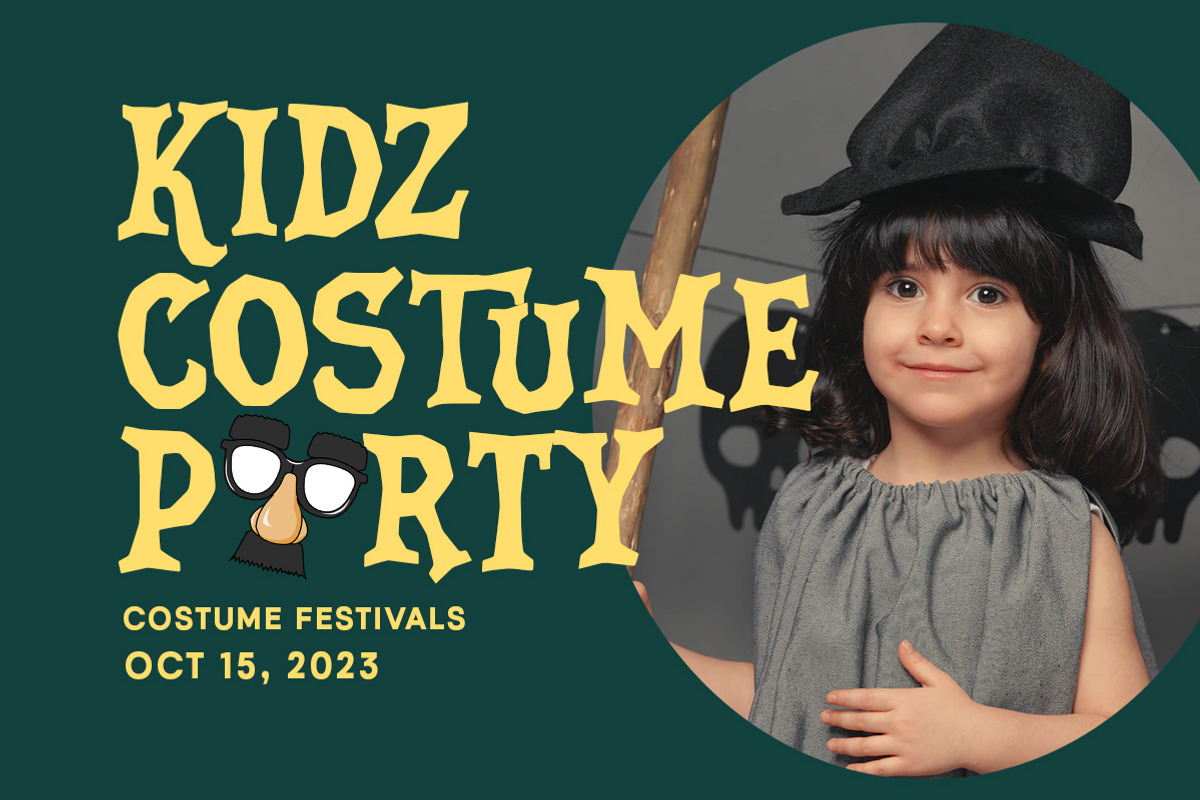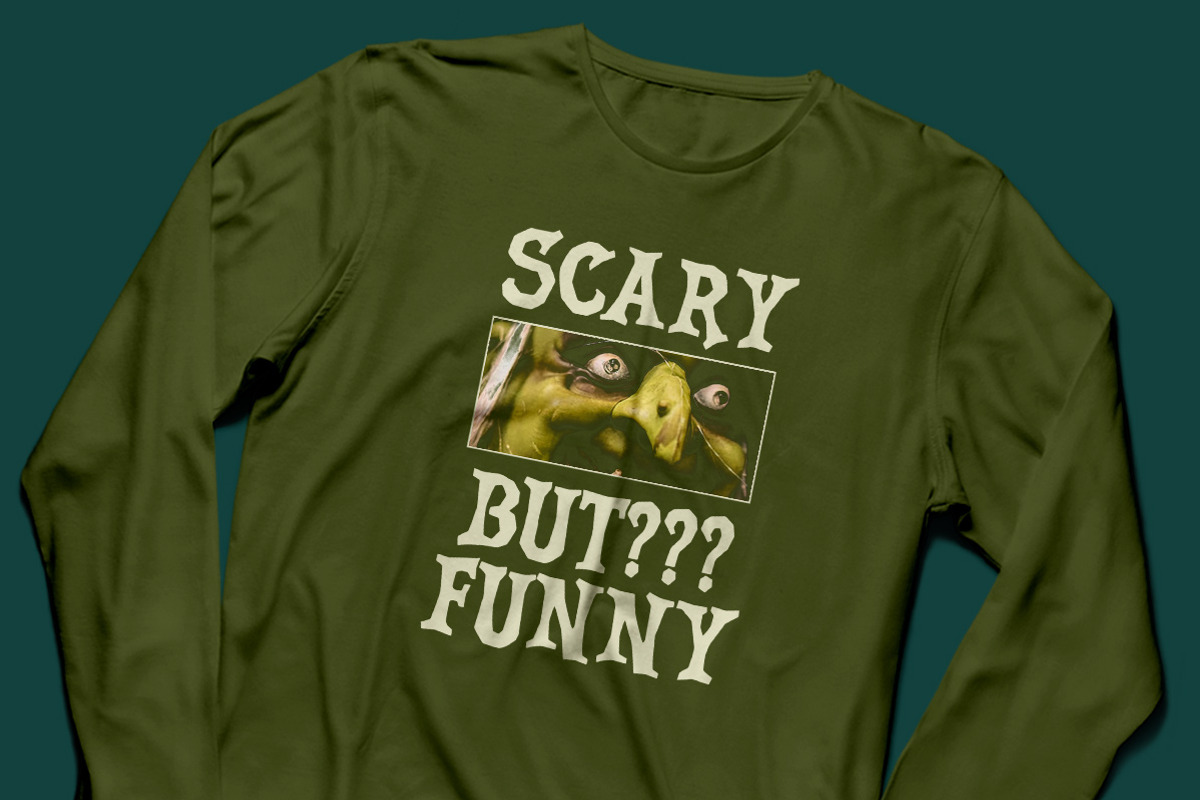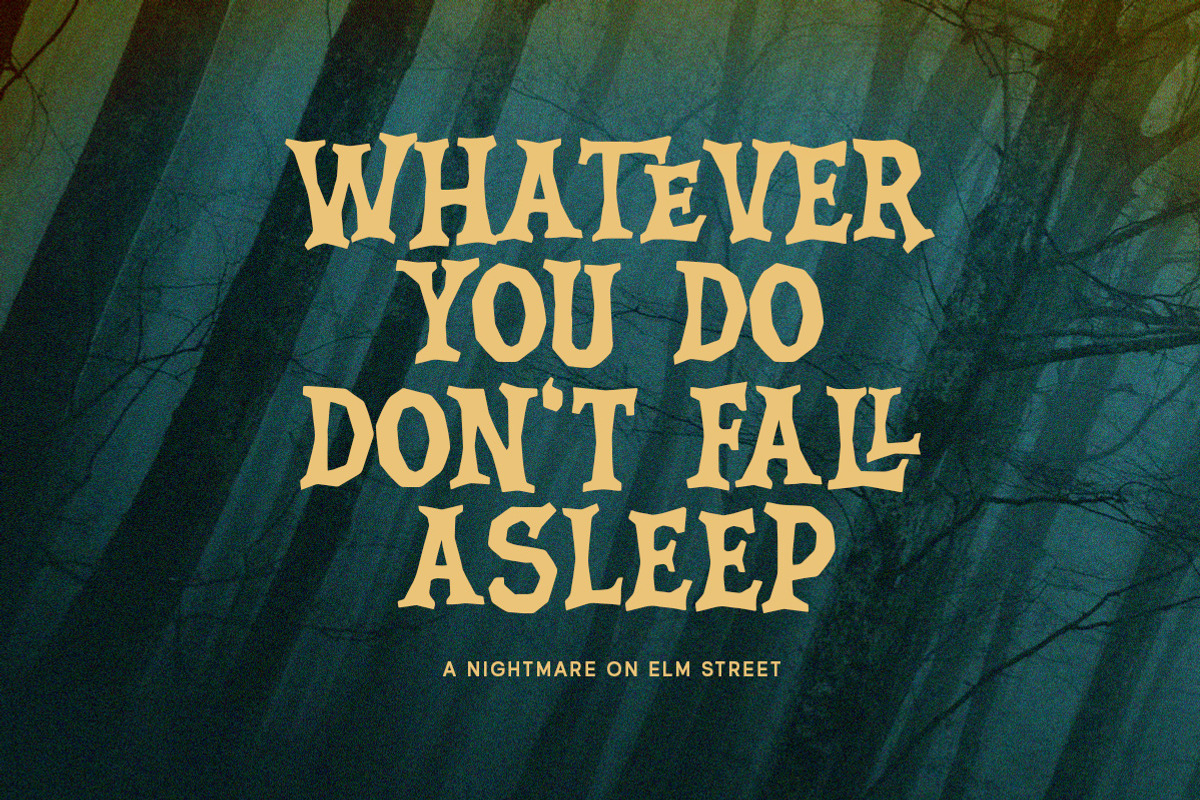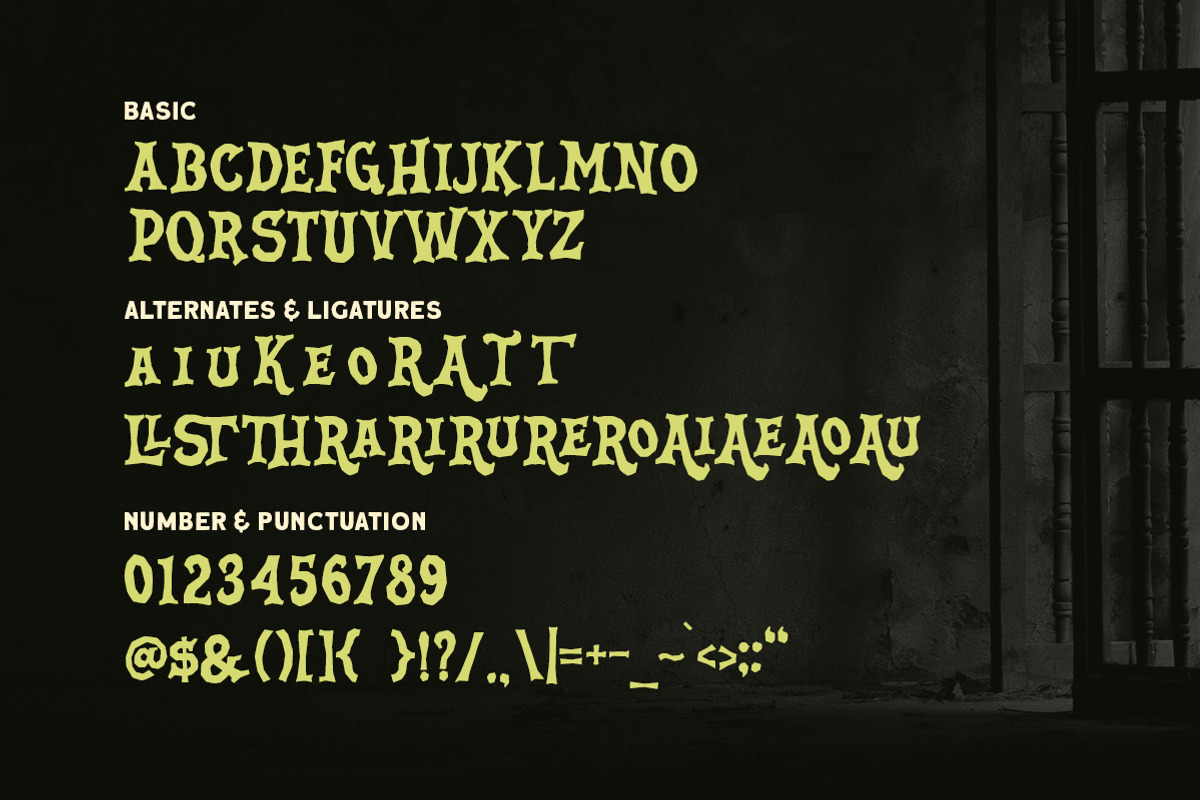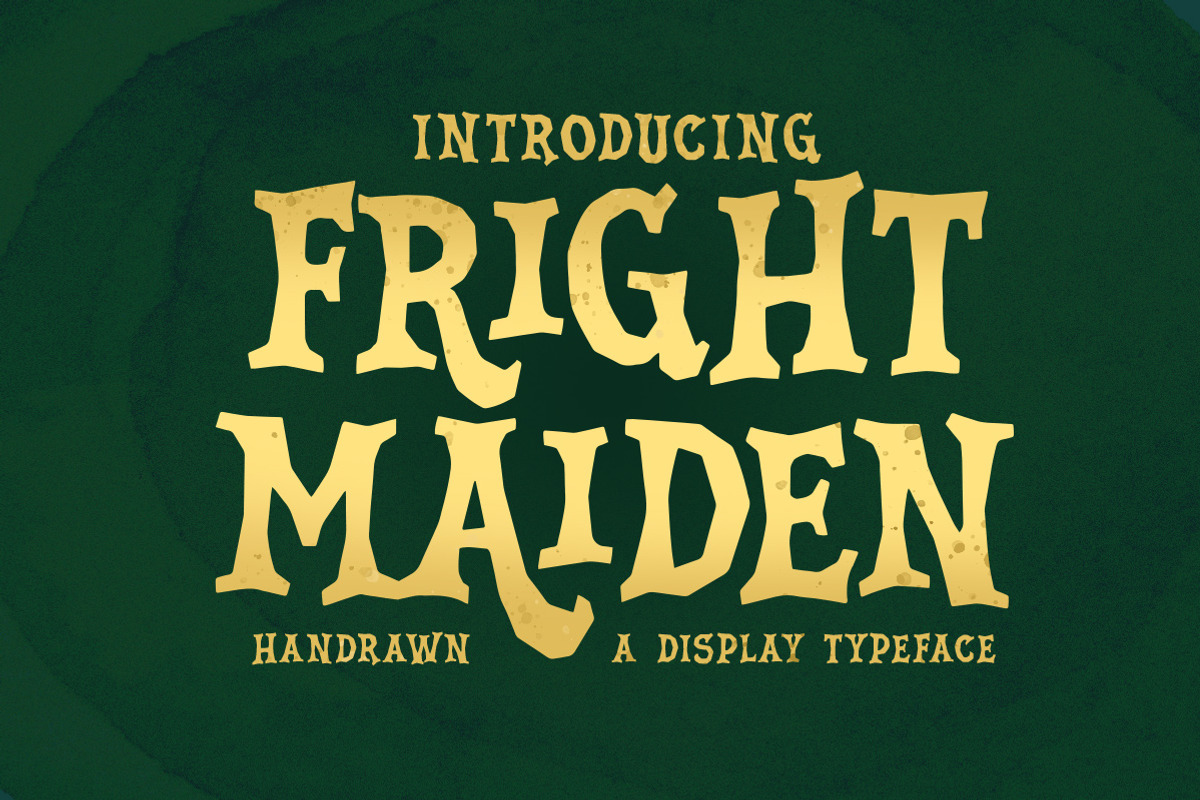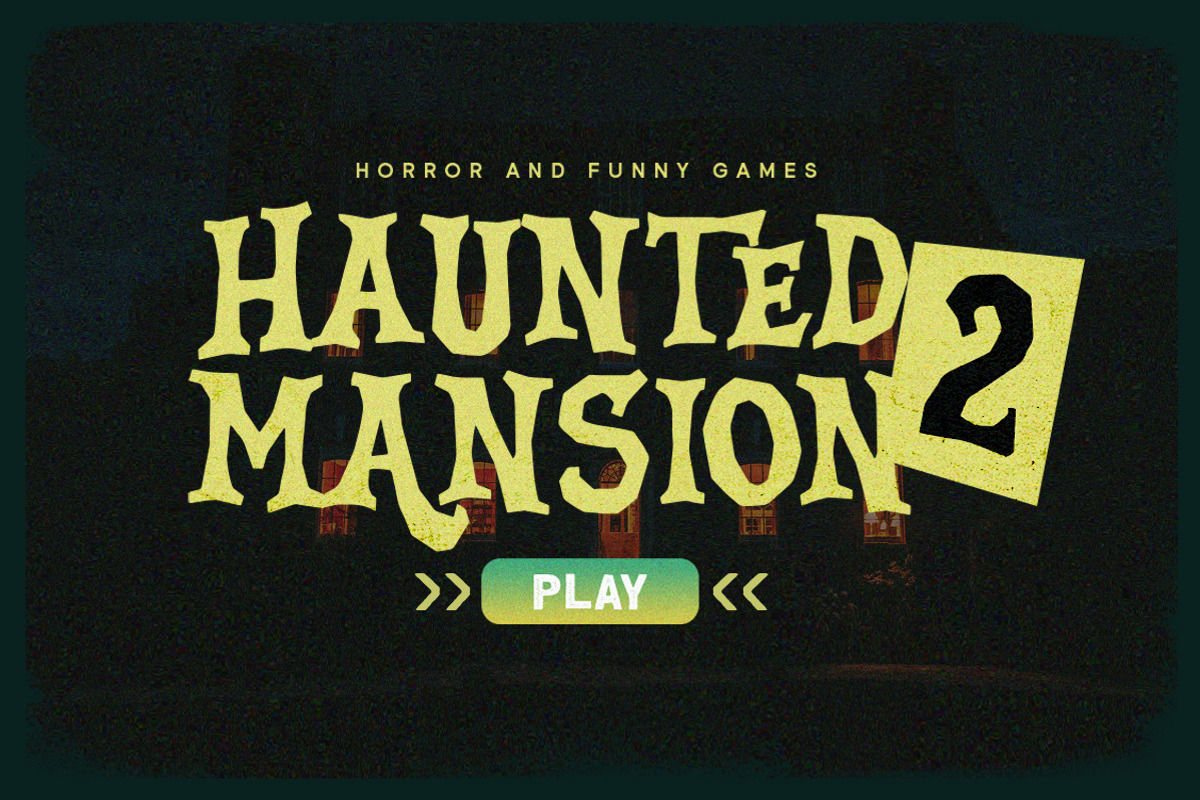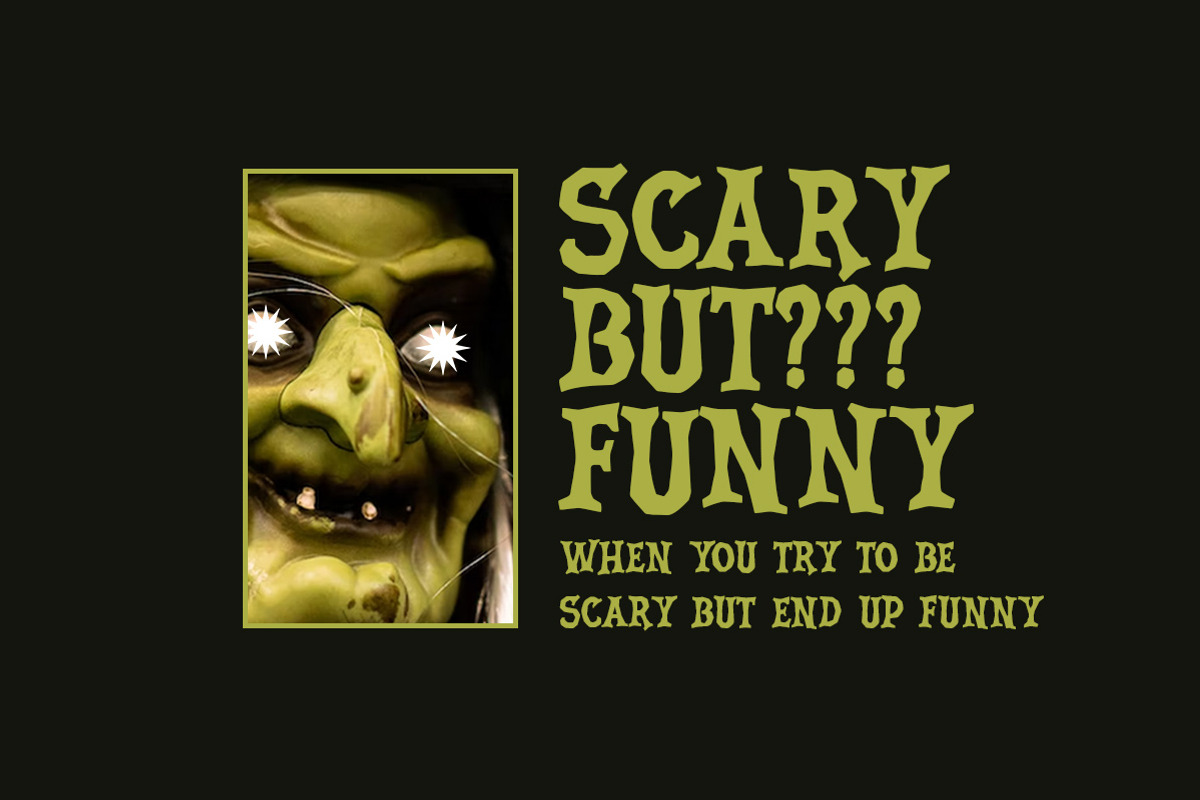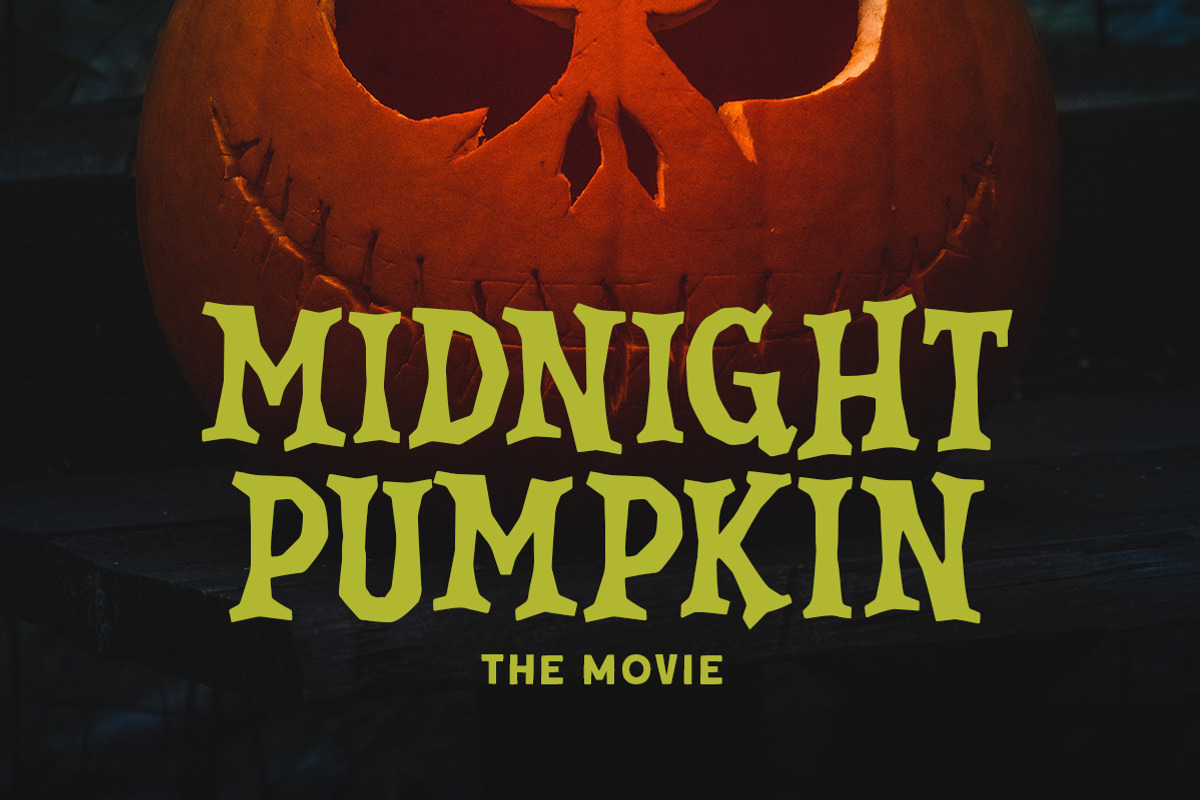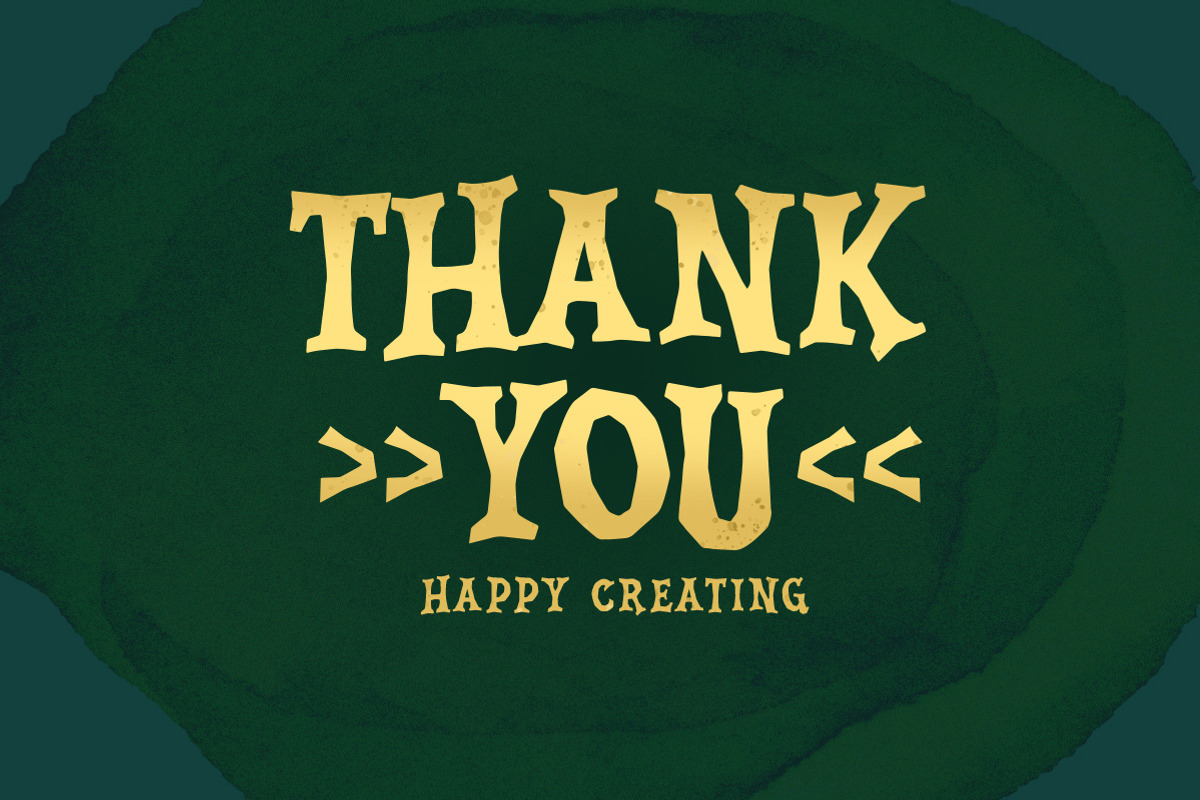
Fright Maiden - Horror Font
Introducing, Fright Maiden - A serif typeface font with bold and horror feel. This font has unique shape, very suitable for horror, thriller and spooky theme design. This font also perfectly made to be applied especially in logo, and the other various formal forms such as invitations, labels, logos, magazines, books, novels, labels or any type of advertising purpose.
- altermate and ligatures